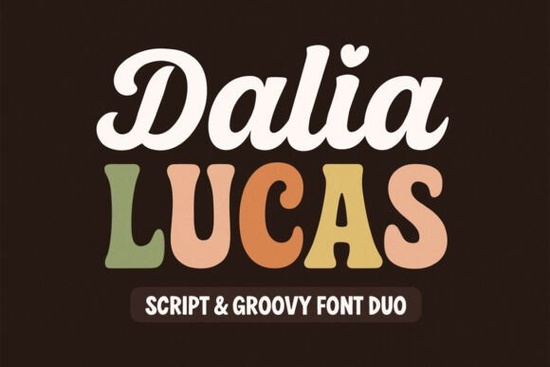
If you're looking for a font that brings warmth, personality, and a touch of vintage flair to your projects, Dalia Lucas Font is worth exploring. This script font duo blends retro charm with modern usability, making it perfect for anyone working on creative designs whether you’re crafting greeting cards, designing logos, or adding flair to digital presentations.
What makes Dalia Lucas Font stand out?
Unlike many generic script fonts, Dalia Lucas feels handcrafted and expressive. It’s not just another decorative typeface it has rhythm, flow, and character. The design draws inspiration from 70s aesthetics: think bold lines, playful curves, and a slightly uneven baseline that gives it an organic, authentic feel.
It works especially well when you want to add emotional tone to text. Whether you’re sharing a heartfelt quote, promoting a boutique product, or branding a small business with soul, this font helps your message land with sincerity.
Where can you use Dalia Lucas Font?
This font shines in a variety of real-world applications:
- Greeting cards – Perfect for birthdays, thank-yous, or wedding invites with a boho or nostalgic vibe.
- Branding & logos – Ideal for indie shops, cafes, or lifestyle brands that want to feel personal and approachable.
- Presentation slides – Use it for titles or key quotes to make your content more memorable.
- Craft projects – Great for print-on-demand items like mugs, tote bags, or wall art.
- Social media graphics – Adds visual interest to posts, stories, and promotional content.
You’ll find that the font adapts well across different sizes. It remains readable and charming whether used in a small caption or as a large display headline.
How does it compare to similar fonts?
If you’ve explored other script fonts, you might have noticed how some feel too rigid or overly stylized. Dalia Lucas strikes a balance between creativity and clarity. It’s less formal than classic scripts, but still professional enough for commercial use.
For example, if you’ve liked simple, stylish script fonts, you’ll appreciate how Dalia Lucas adds a bit more energy without losing legibility. And if you’re drawn to bold, expressive styles, it sits comfortably alongside options like Beyond Perfection or Tail, though with its own distinct personality.
Compared to other retro-inspired fonts, Dalia Lucas stands out for its consistency in style while still offering variation in weight and spacing ideal for designers who want flexibility.
Is it easy to use?
It also includes a wide range of characters, including alternate letters and ligatures, which lets you customize your text to feel more unique. Just a few tweaks can turn a simple line of text into something truly special.
Final thoughts
Dalia Lucas Font isn’t about flashy effects or gimmicks. It’s about expressing mood, telling stories, and giving your work a human touch. If you’re tired of fonts that feel cold or impersonal, this one offers a refreshing alternative.
It’s especially useful if you’re building a brand identity, creating handmade-style products, or simply want to make your next project feel more personal.